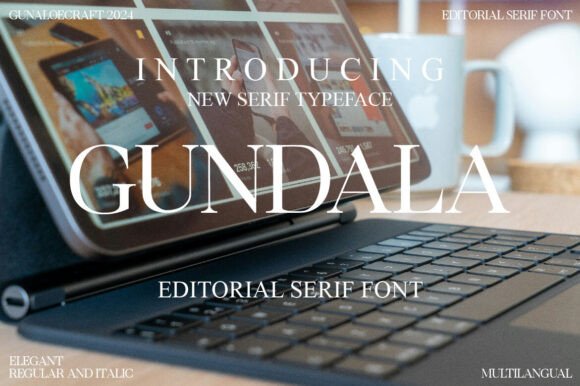
Gundala Font: Elevate Your Design with a Contemporary Serif Typeface
In the world of typography, a well-crafted font can make all the difference in bringing a design to life. Introducing Gundala, a modern and sophisticated serif typeface creatively crafted by Gunaloecraft. This versatile font has been meticulously designed to cater to a wide range of projects, from eye-catching logos to powerful typography, inspiring quotes to enticing magazine or book covers.
The Versatility of Gundala Font
Gundala’s versatility is one of its standout features. This font excels in enhancing various design elements, including:
- Website Headers: Gundala’s modern and sophisticated design makes it an excellent choice for website headers, adding a touch of elegance and sophistication to any website.
- Branding: The font’s unique style infuses uniqueness in branding, allowing businesses to establish a distinctive identity that sets them apart from the competition.
- Packaging Design: Gundala’s stylish flair makes it an excellent choice for packaging design, elevating product packaging to a whole new level.
- Social Media Posts: The font’s modern design ensures that social media posts stand out in a crowded feed, making it perfect for businesses and individuals looking to make a statement.
- Flyers and Posters: Gundala’s bold and sophisticated design makes it an excellent choice for flyers and posters, grabbing the attention of potential customers and leaving a lasting impression.
- Web Design: The font’s versatility extends to web design, where it can be used to create visually stunning and engaging websites that reflect a brand’s personality.
Design Features of Gundala Font
Gundala’s design features are what set it apart from other serif typefaces. Some of its notable features include:
- Modern and Sophisticated Design: Gundala’s design is characterized by its modern and sophisticated style, making it perfect for designs that require a touch of elegance.
- Serif Typeface: The font’s serif typeface adds a touch of classic sophistication to any design, making it perfect for designs that require a sense of tradition and heritage.
- Clean Lines: Gundala’s clean lines ensure that the font is easy to read, making it perfect for body text and other applications where readability is crucial.
Benefits of Using Gundala Font
The benefits of using Gundala font are numerous. Some of the most significant advantages include:
- Unique Design: Gundala’s unique design ensures that your designs stand out from the competition, making it perfect for businesses and individuals looking to establish a distinctive identity.
- Versatility: The font’s versatility makes it suitable for a wide range of projects, from website headers to social media posts.
- Elegance: Gundala’s modern and sophisticated design adds a touch of elegance to any design, making it perfect for designs that require a sense of luxury and sophistication.
- Readability: The font’s clean lines ensure that it is easy to read, making it perfect for body text and other applications where readability is crucial.
Tips for Using Gundala Font
Here are some tips for using Gundala font:
- Use it for Headings: Gundala font is perfect for headings and titles, where its modern and sophisticated design can make a lasting impression.
- Pair it with Other Fonts: Pair Gundala font with other fonts to create a unique and visually stunning design.
- Experiment with Font Sizes: Experiment with different font sizes to find the perfect size for your design.
In conclusion, Gundala font is a versatile and sophisticated serif typeface that can elevate any design. Its modern and elegant design makes it perfect for a wide range of projects, from website headers to social media posts. With its clean lines, readability, and unique design, Gundala font is an excellent choice for businesses and individuals looking to make a statement.